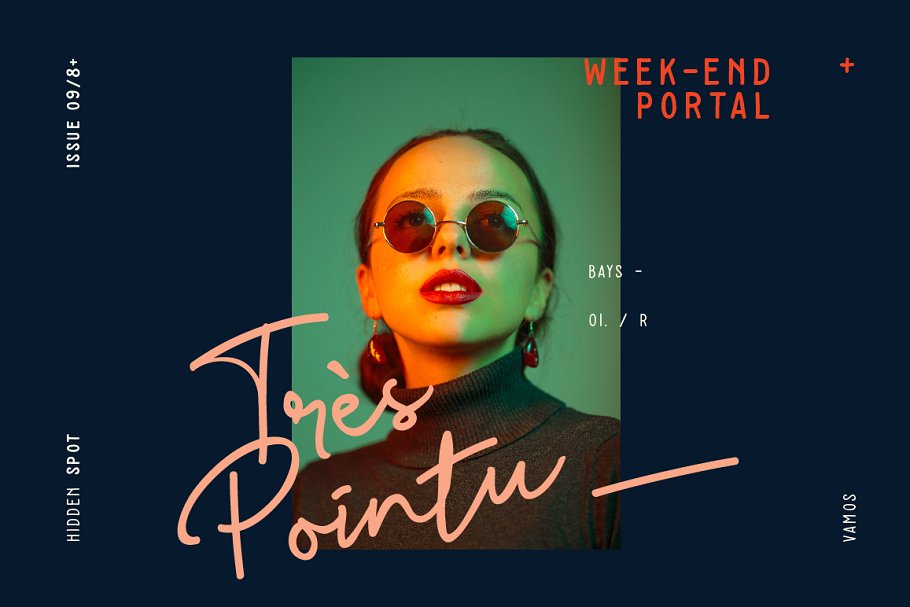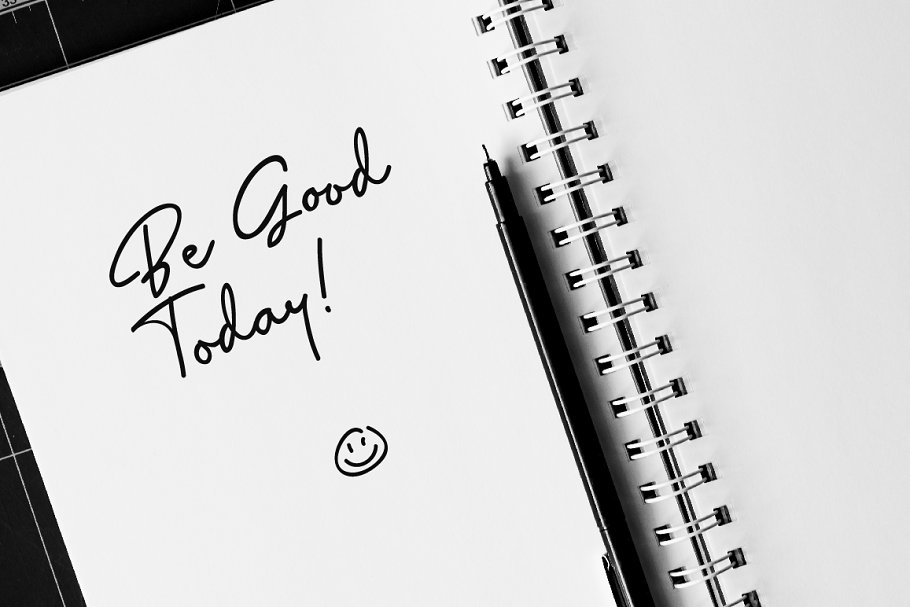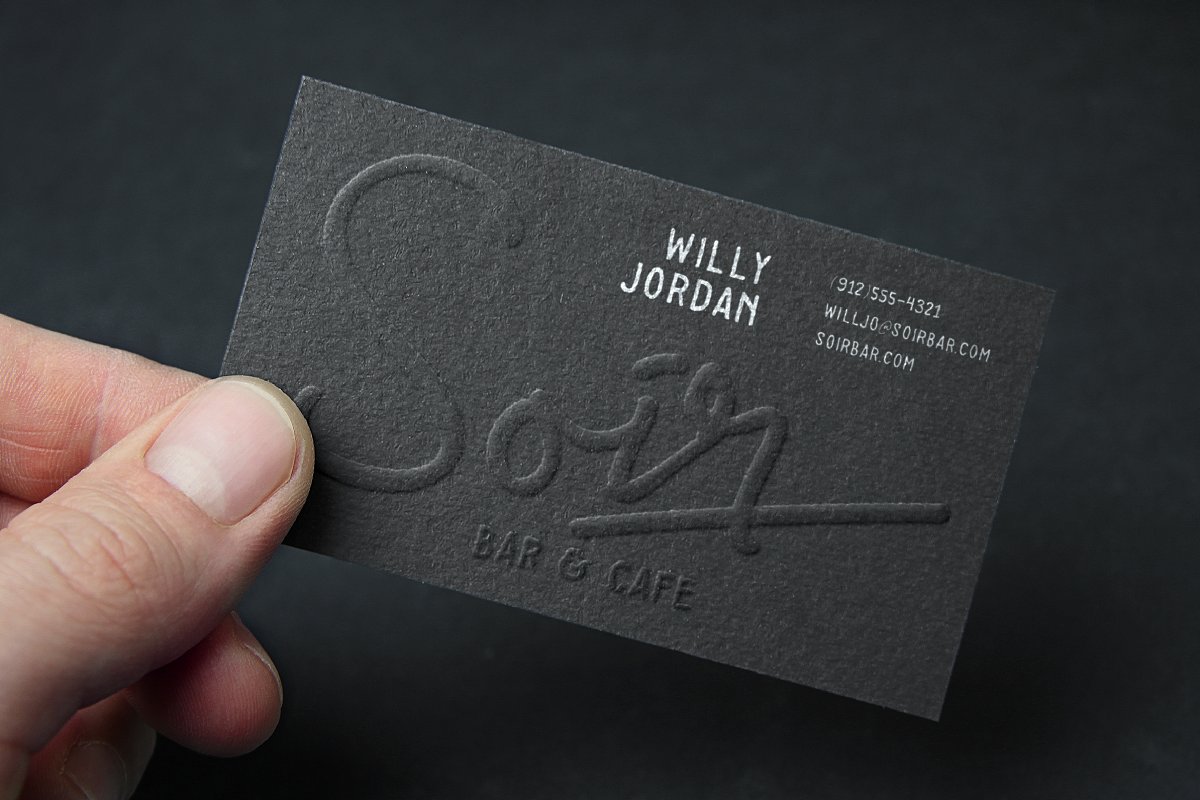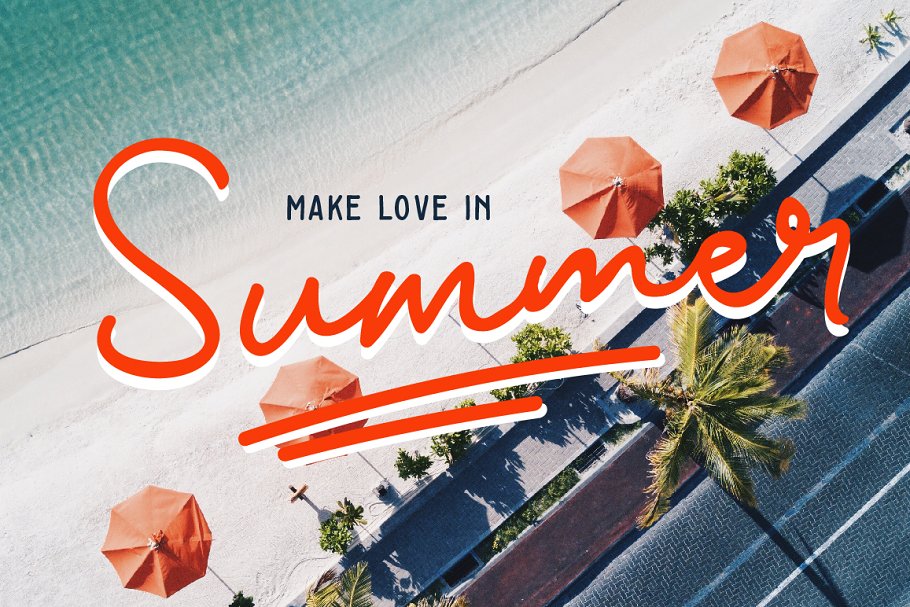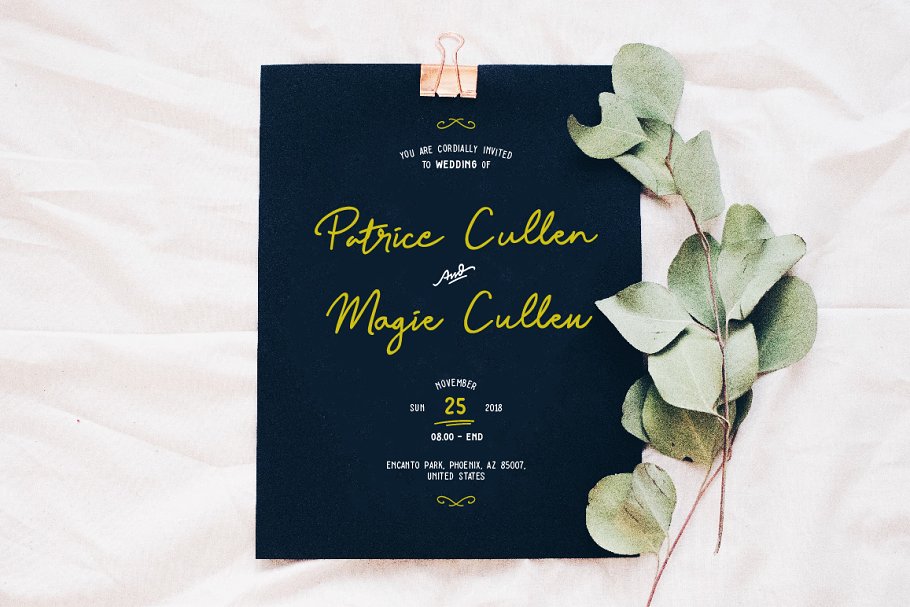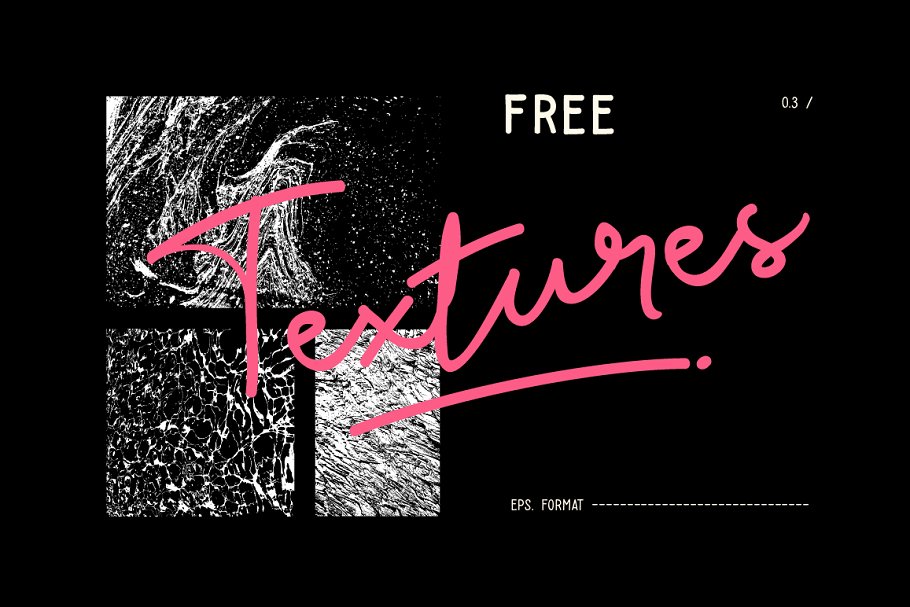
About the Baysoir Duo Handwritten Font
Baysoir™ is a handwritten signature font, available on script and Display Sans serif typeface, These two lovely fonts would be perfect to combine in your design, we develop Its with natural and fresh look, made with hand painted and carefully crafted, What Files Include :OTF/TTFBaysoir ScriptBaysoir Sans DisplayBaysoir ExtrasTextureOpentype Features :LigaturesStylistic AlternatesHow to access Opentype :Please Check this links http://www